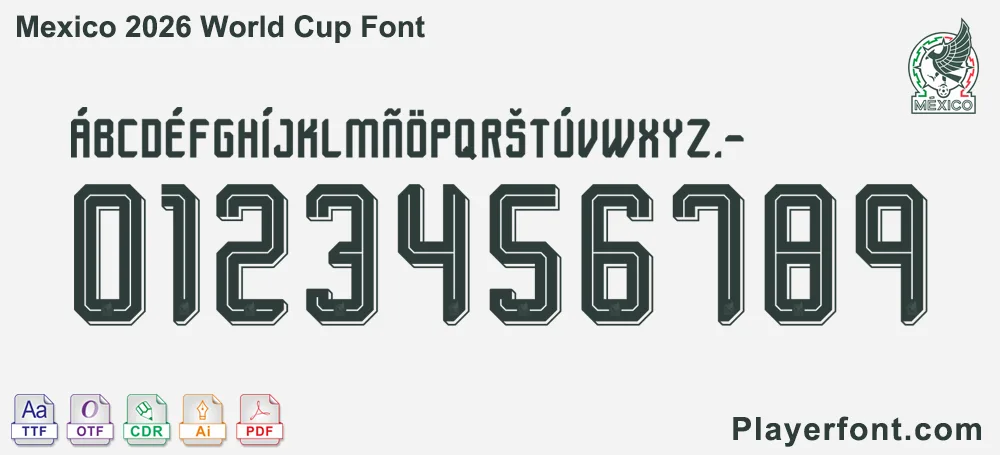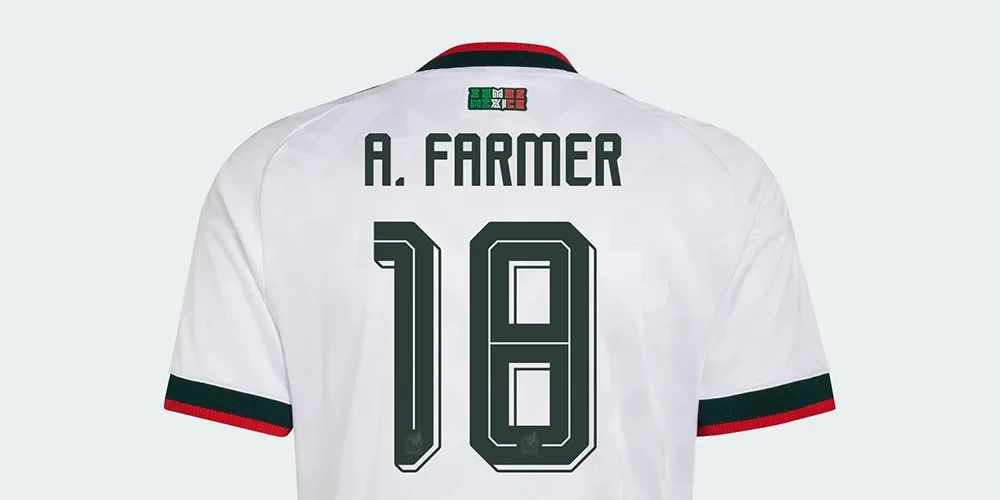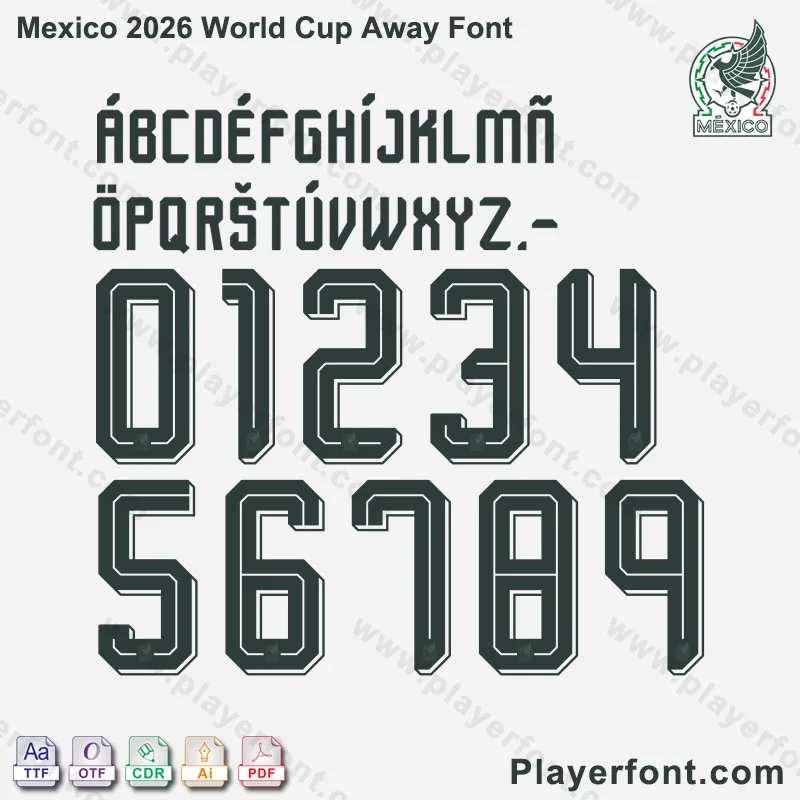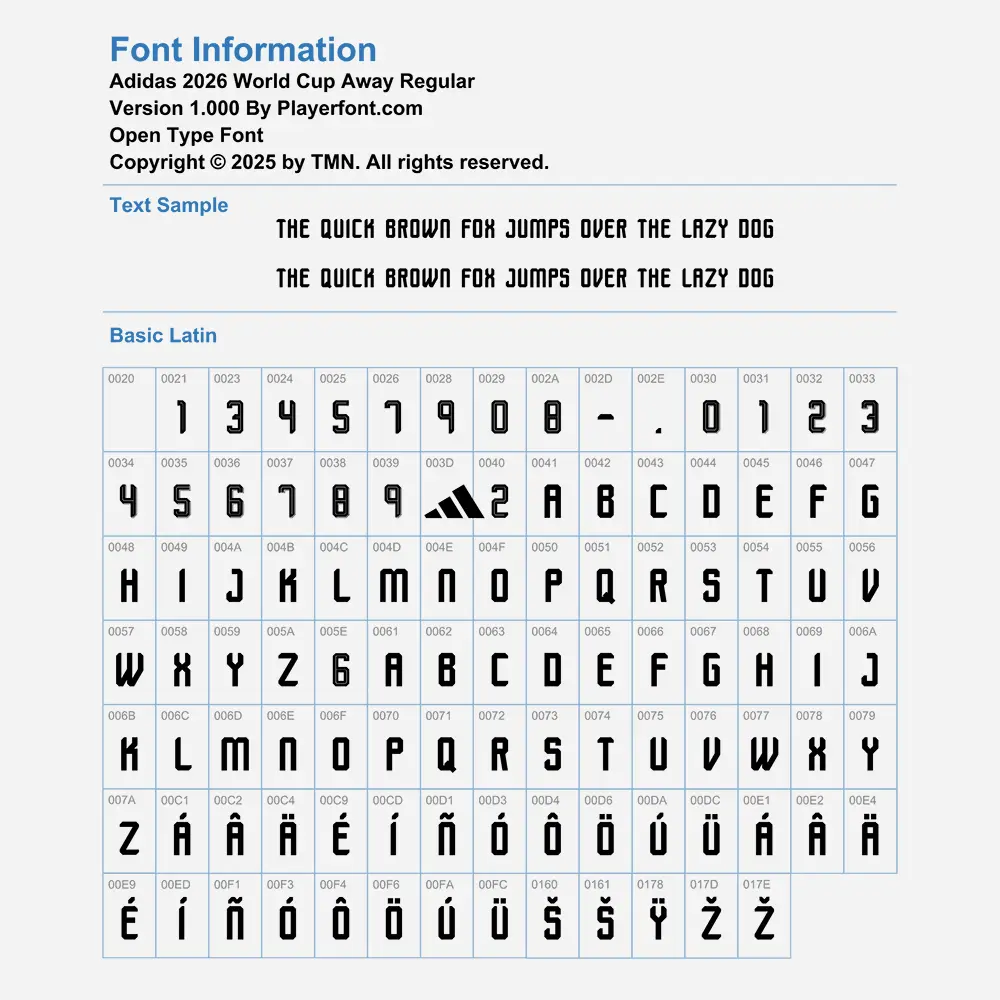
Mexico 2026 World Cup Away Font Kit
Complete your kit collection with the official-style Mexico 2026 World Cup Away Font Kit. This premium digital product includes installable font formats (TTF, OTF) and fully scalable vector files (AI, CDR, PDF), specifically designed for the Mexican National Team’s 2026 away jersey customization.
Back of Mexico 2026 World Cup Away jersey showing number 18 and name A. Farmer in dark green font.
Real-world preview of the Mexico 2026 Away font on the official white jersey.
Elevate your sports design projects with the Mexico 2026 World Cup Away Font. This kit captures the unique, modern aesthetic of Mexico’s latest tournament look, featuring the distinctive 3D-effect numbers and customized lettering.
• Full Character Set: Includes all uppercase letters (A-Z), special characters (Á, É, Í, Ñ, Ó, Ú), and the iconic numbers 0-9 featuring the Mexico federation logo at the base.
Mexico 2026 World Cup Away font kit preview showing letters and numbers on a light background.Mexico 2026 World Cup Away Font Kit